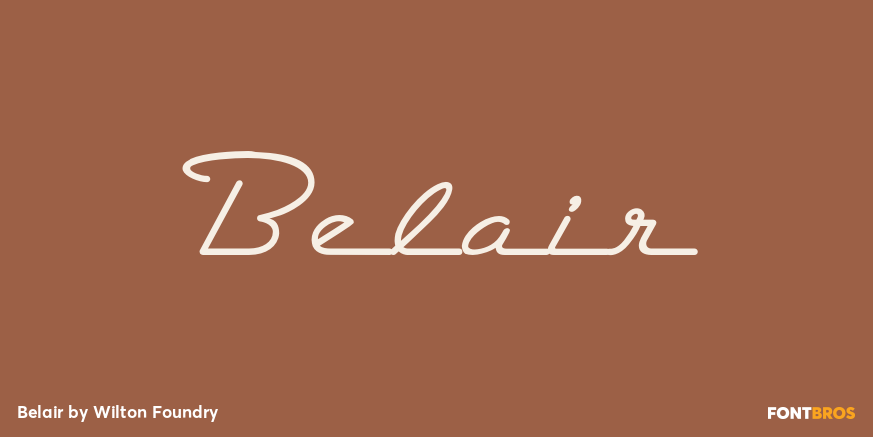
Belair
Font Family by Wilton Foundry
It started when someone requested a font based on the 1957 Chevrolet Belair logo. Belair Light, Belair Regular, and Belair Shadow provide for a nice variety.